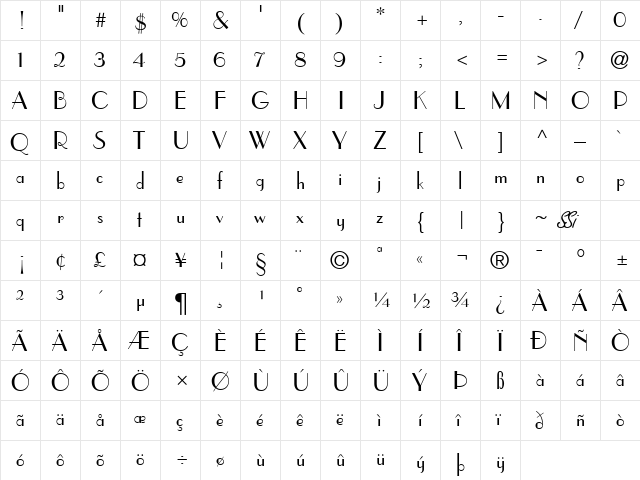
Touche SSi Regular
Design Context for Touche SSi Typeface
Touche SSi takes a measured approach to typography — its balanced proportions and neutral character make it a reliable workhorse for both digital and print work.